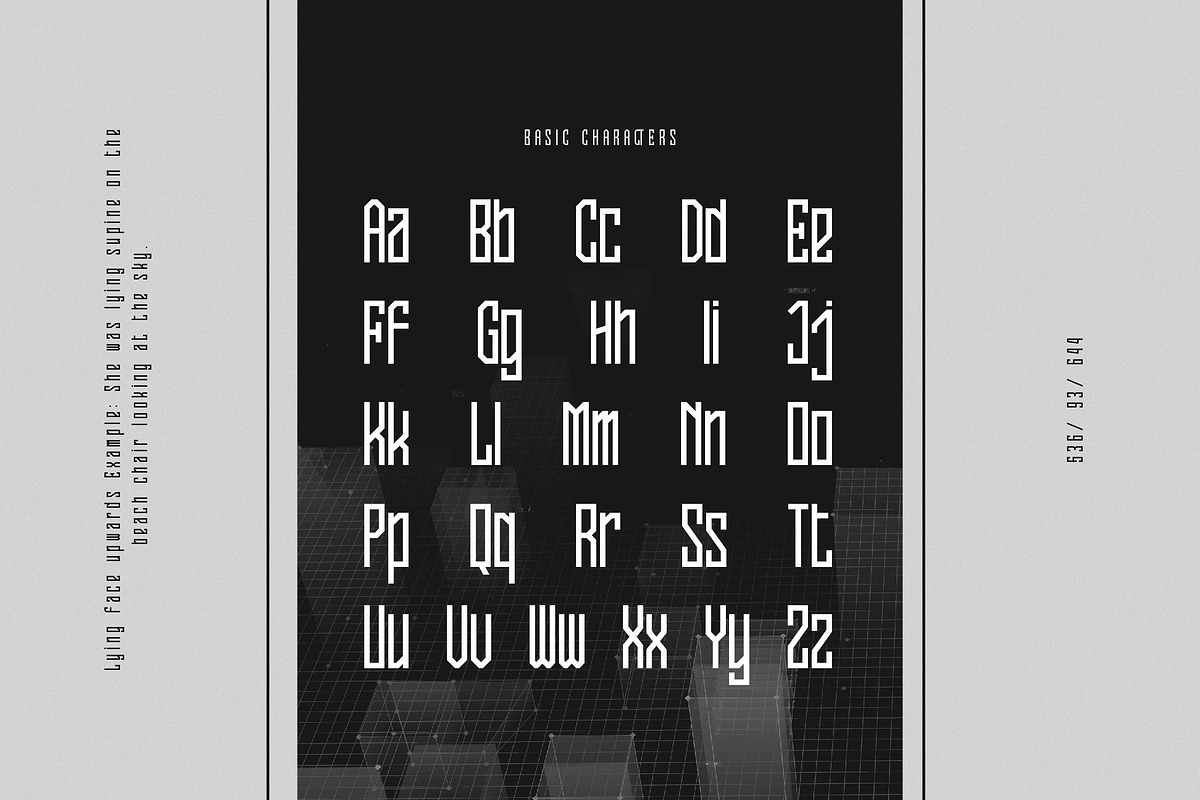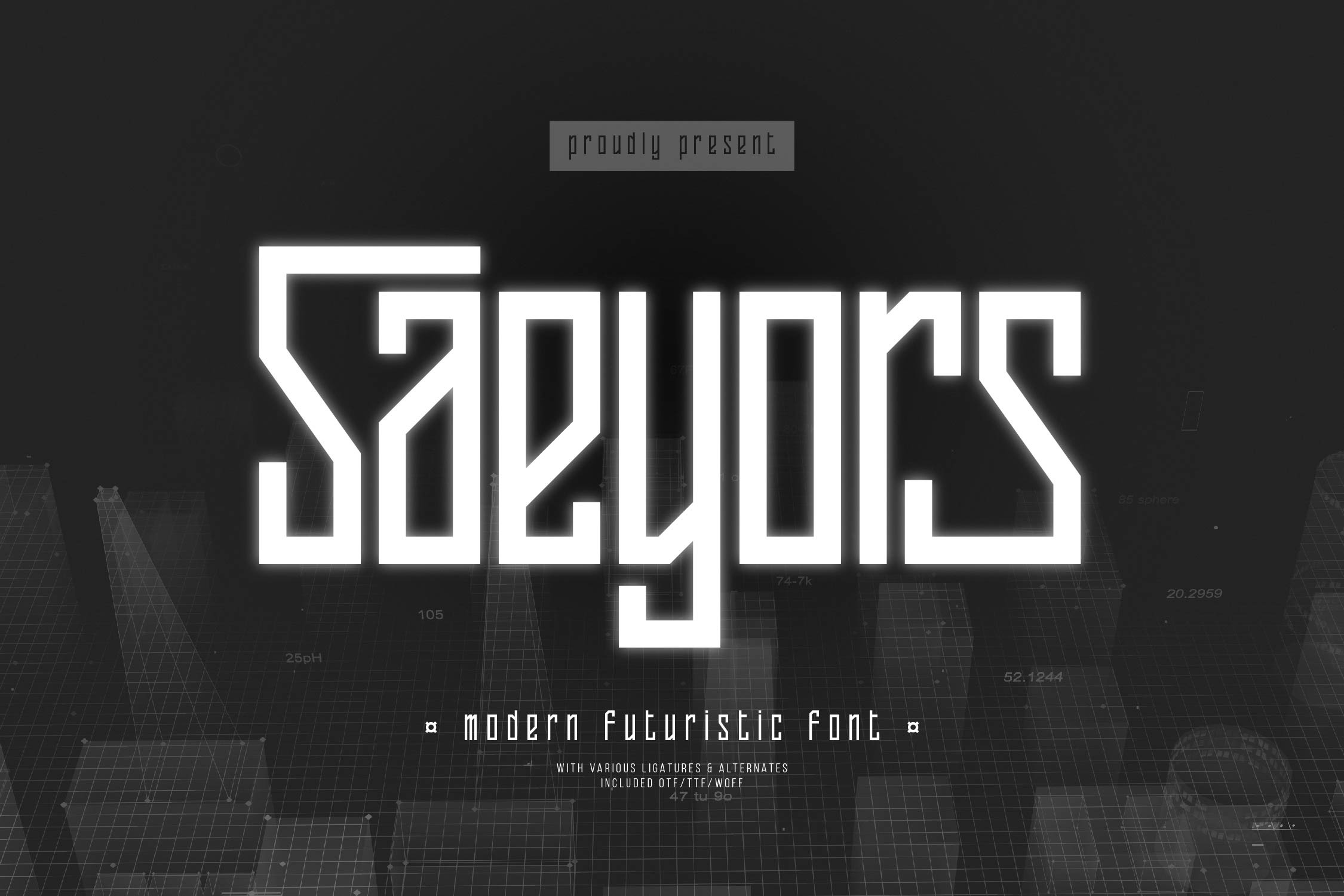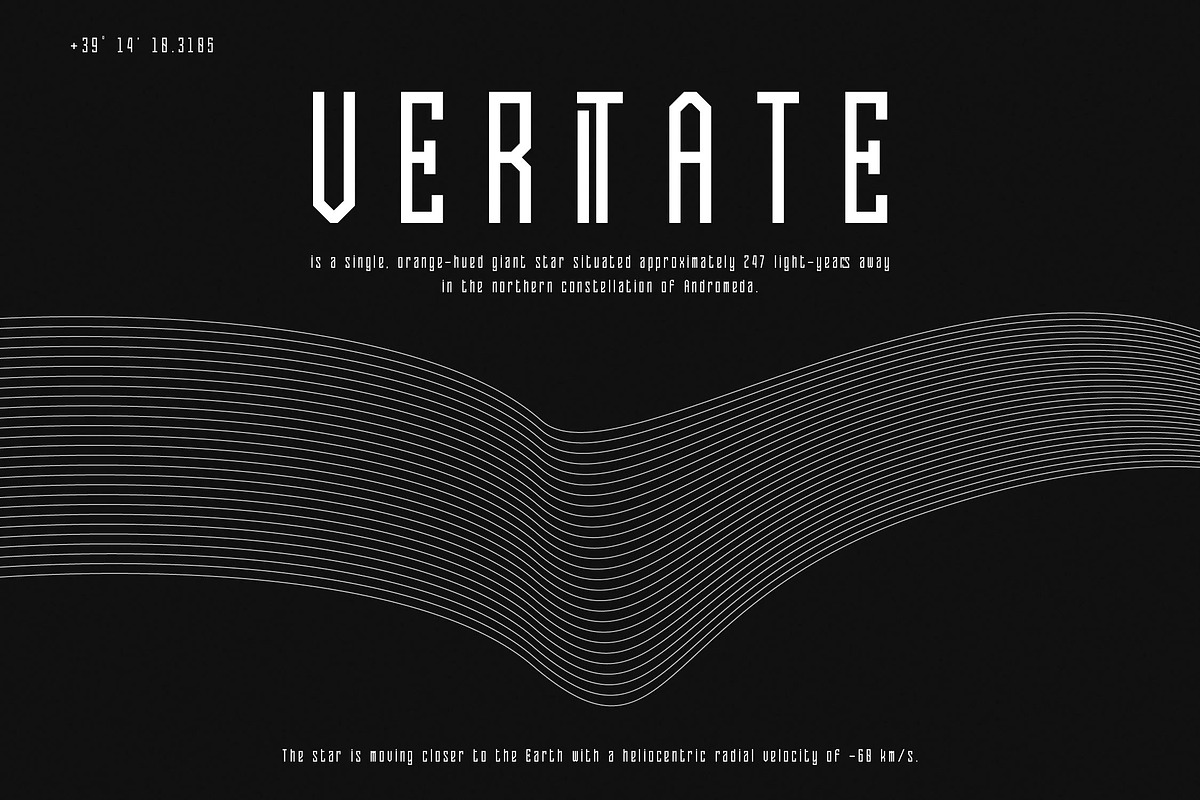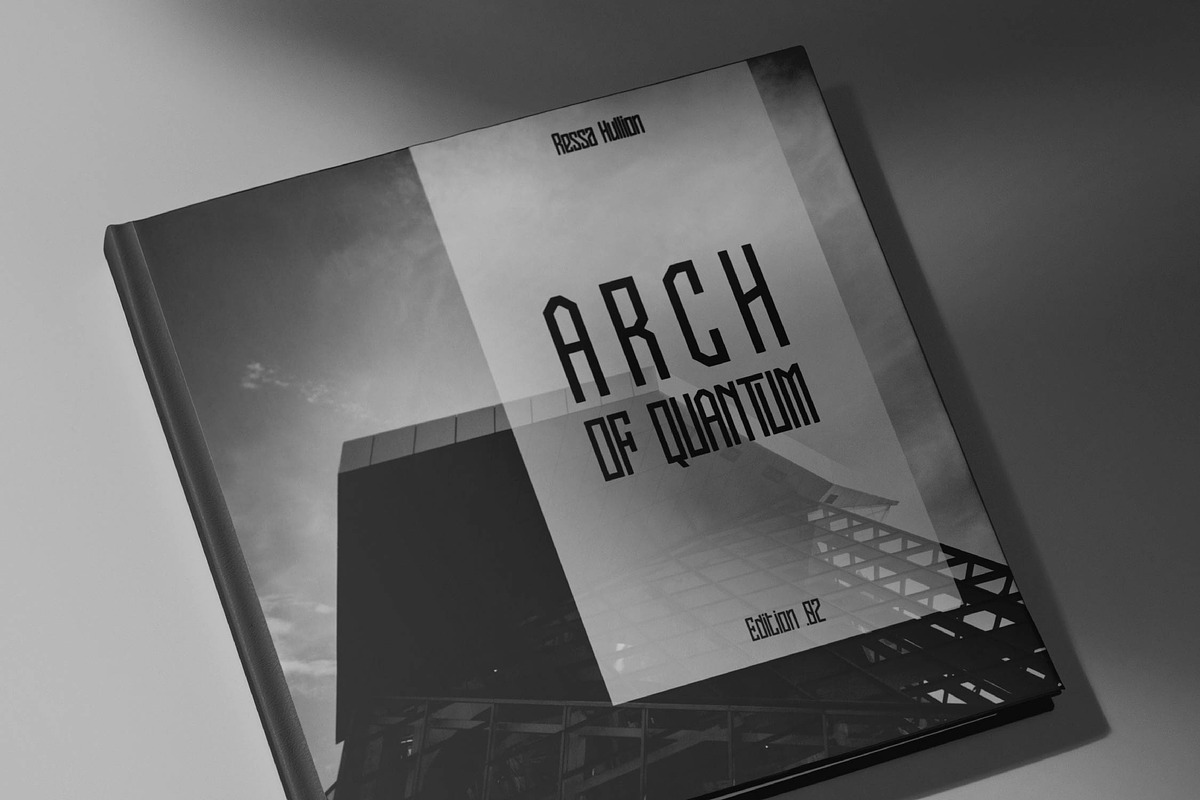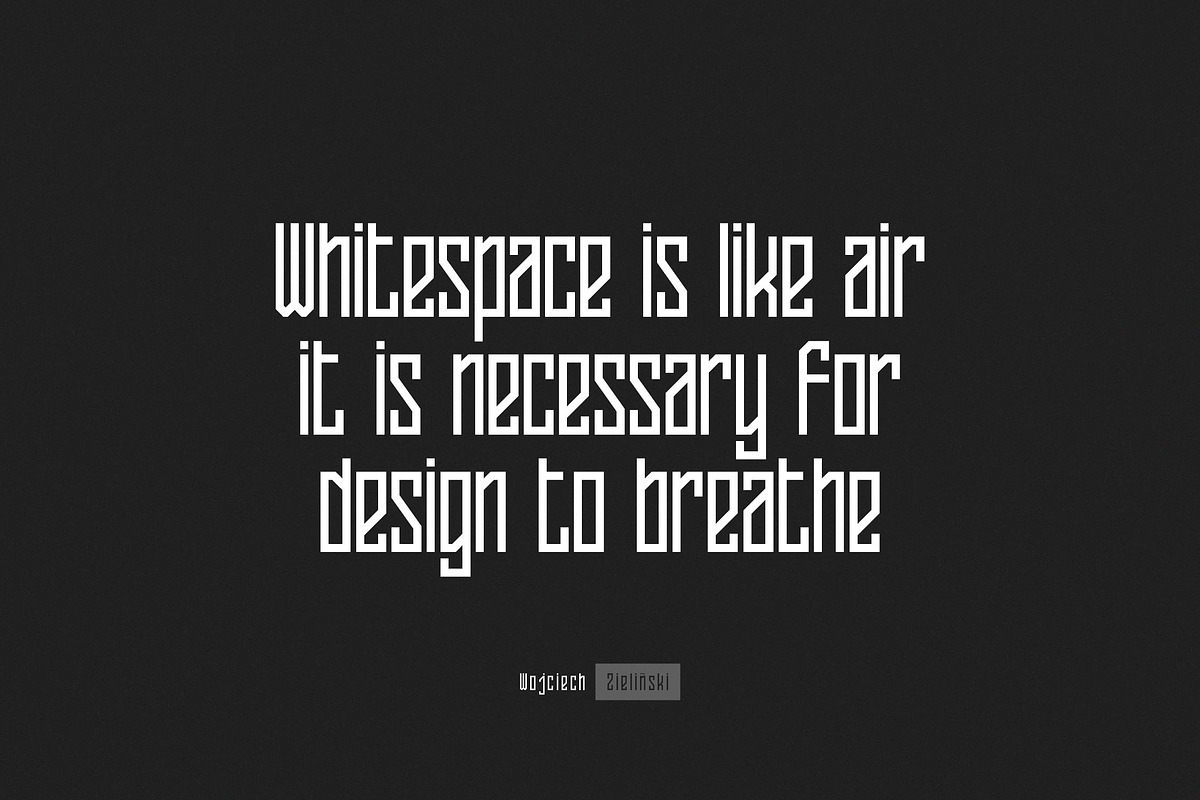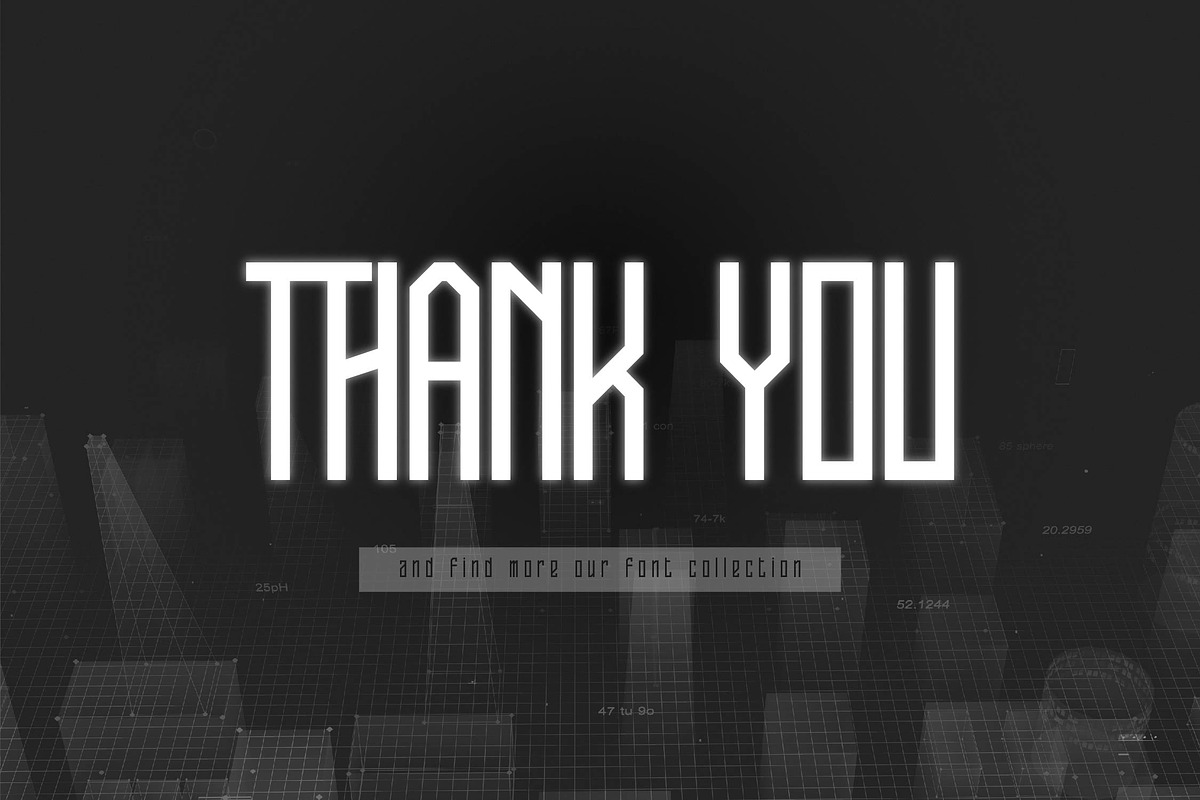
Saeyors | Modern Futuristic Font
Saeyors | Modern Futuristic Font, from Denustudios, suitable for any projects such as: logos, branding projects, homeware designs, product packaging, mugs, quotes, posters, shopping bags, t-shirts, book covers, name card, invitation cards, greeting cards, label, photography, watermark, special events, and all your other lovely projects that need a Modern Futuristic taste.